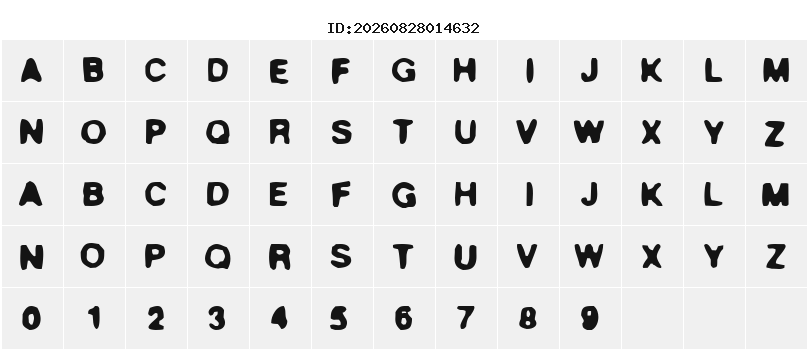
• Font Name: True Stories
• Full Font Name: True Stories
About True Stories.ttf
True Stories.ttf is a modern, elegant sans-serif font designed for ultimate readability and visual harmony. Perfect for branding, headlines, web design, and print materials.